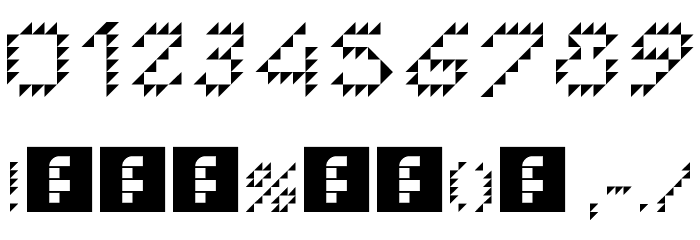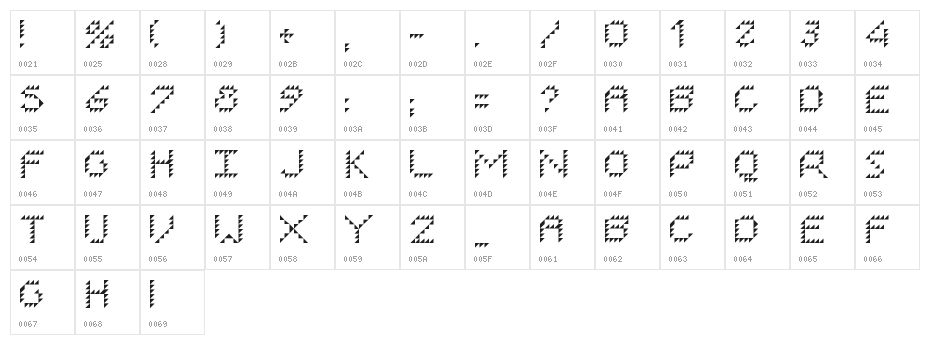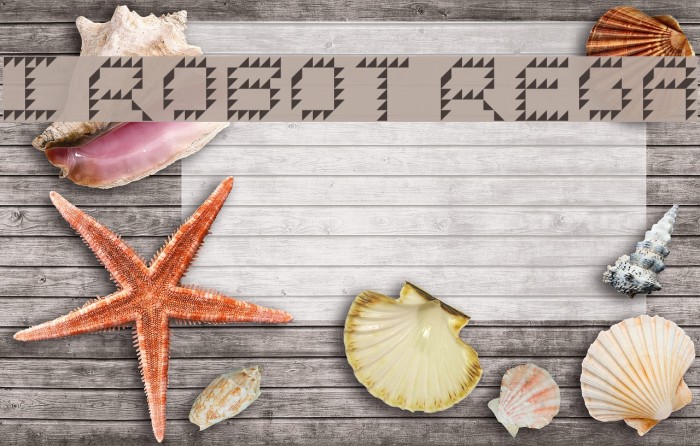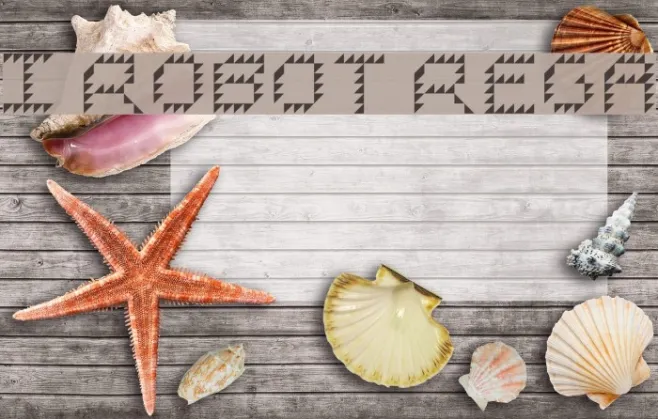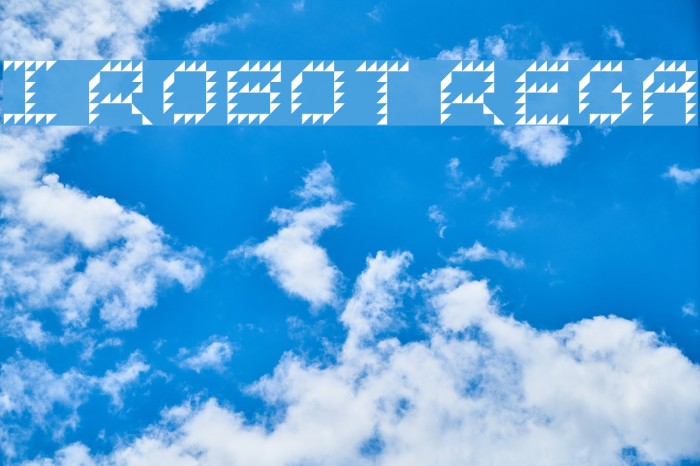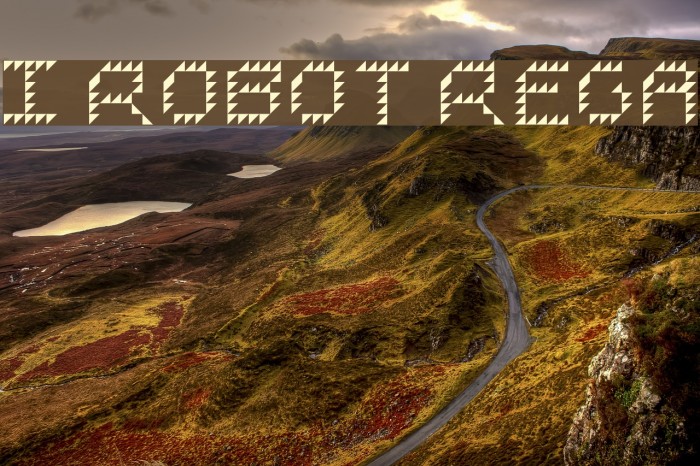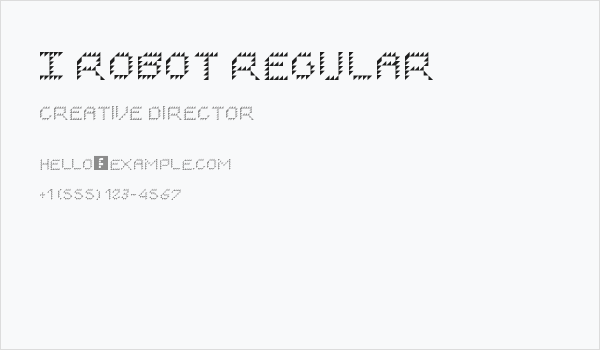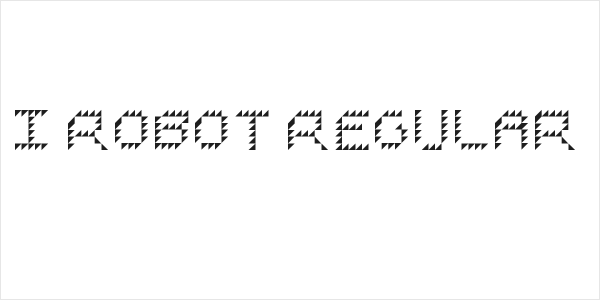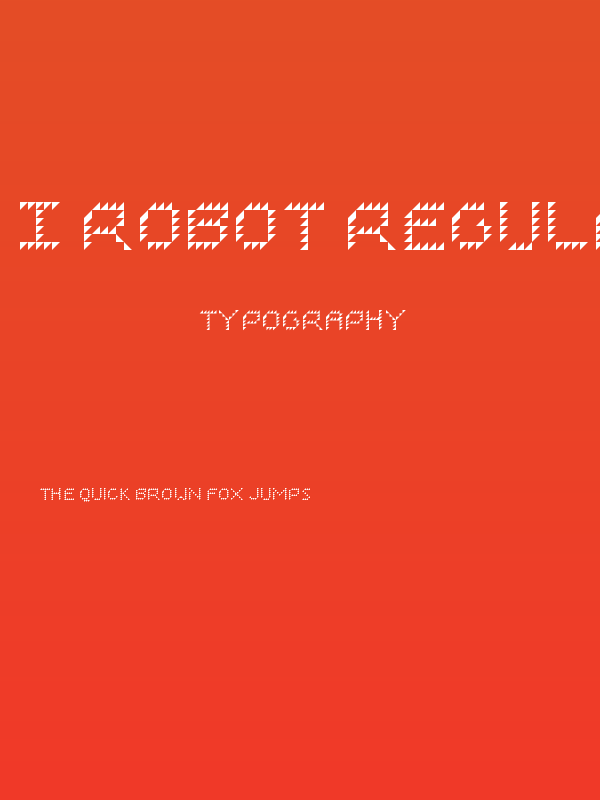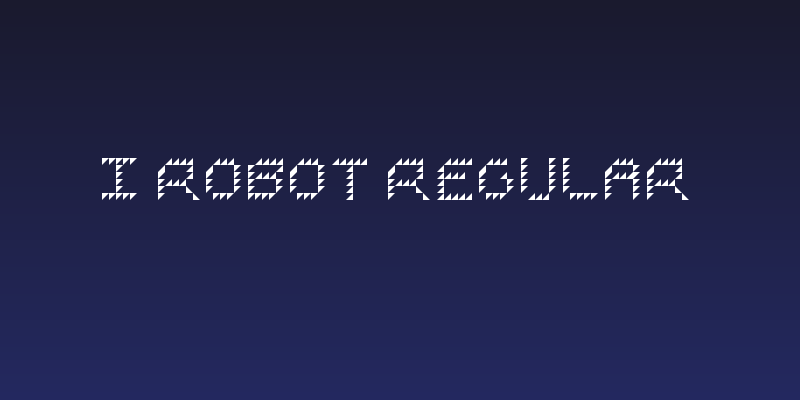
I ROBOT Regular Font
This font features a distinctive geometric design with a futuristic and robotic aesthetic. Each character is constructed using a series of triangular shapes, giving it a sharp, angular appearance. The uppercase and lowercase letters maintain a consistent style, with the same triangular motif applied throughout. Numbers and special characters follow the same design principles, ensuring uniformity across the font. The unique style makes it stand out, making it ideal for projects that require a modern and edgy look.
Overall StyleFuturistic
Proposed ProjectsIdeal for sci-fi themed projects, tech branding, video game titles, and futuristic posters.